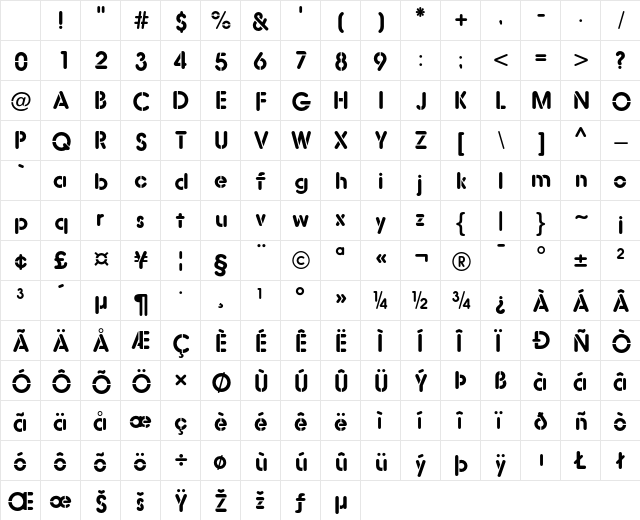
Hiruko Stencil borrows the utilitarian aesthetic of stencil lettering, with its characteristic cutaways and no-frills construction lending an industrial edge.
Pro Tip: Use Hiruko Stencil at large sizes on packaging, posters, or apparel where the stencil cutaways read clearly. Avoid small sizes where those gaps become visual noise.